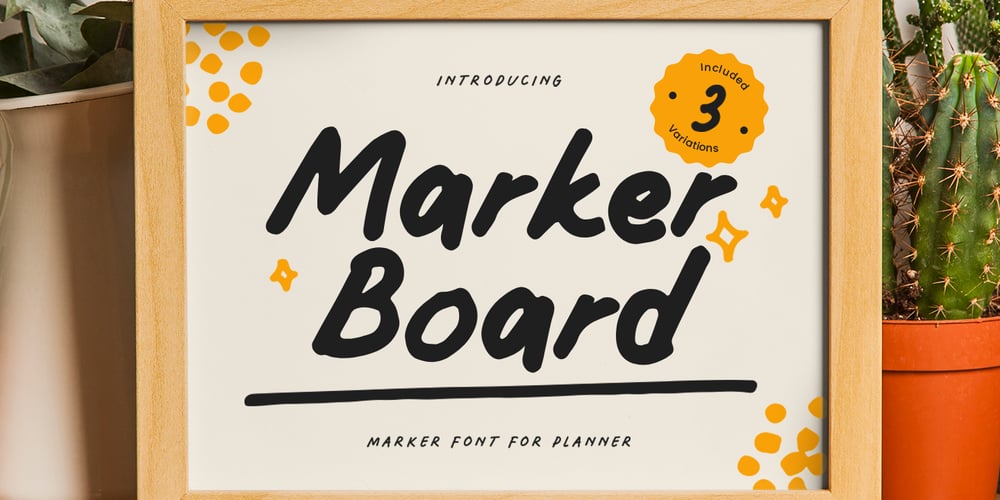
Marker Board Font Family was designed by Zamroni Hamzah and published by Sensatype Studio. Marker Board contains 1 styles and family package options. Marker Board is a Marker Font that’s perfect for Planner, or Merchandise. This font specially crafted for your planner or design projects such as banner, poster, flyer, website design, product packaging, merchandise, pillow print and so many more with easy to use but standing out results are so amazing. Enjoy to Design any your needs with standing out, unique, and authentic feels.